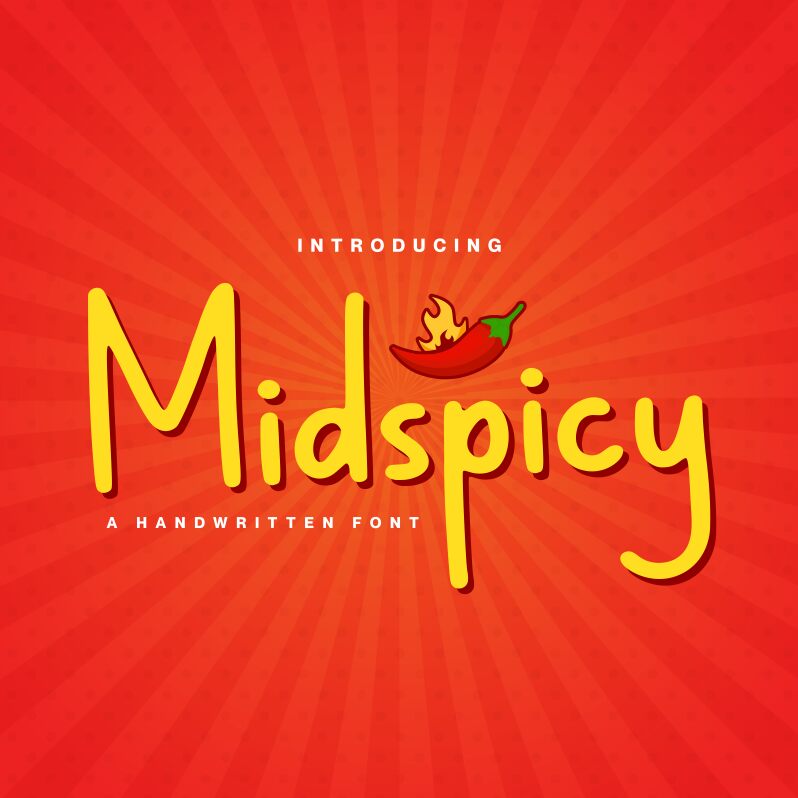
Midspicy
Introducing Midspicy, a fun and unique handwritten font crafted by Allouse.Studio. Its light weight gives it an airy, lighthearted feel perfect for projects looking to add a vibrant touch – think magazines, social media posts, or logos!